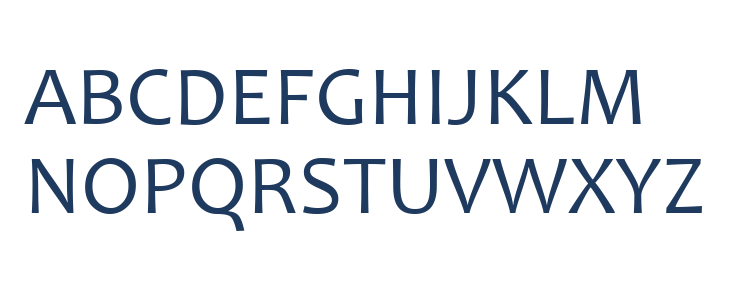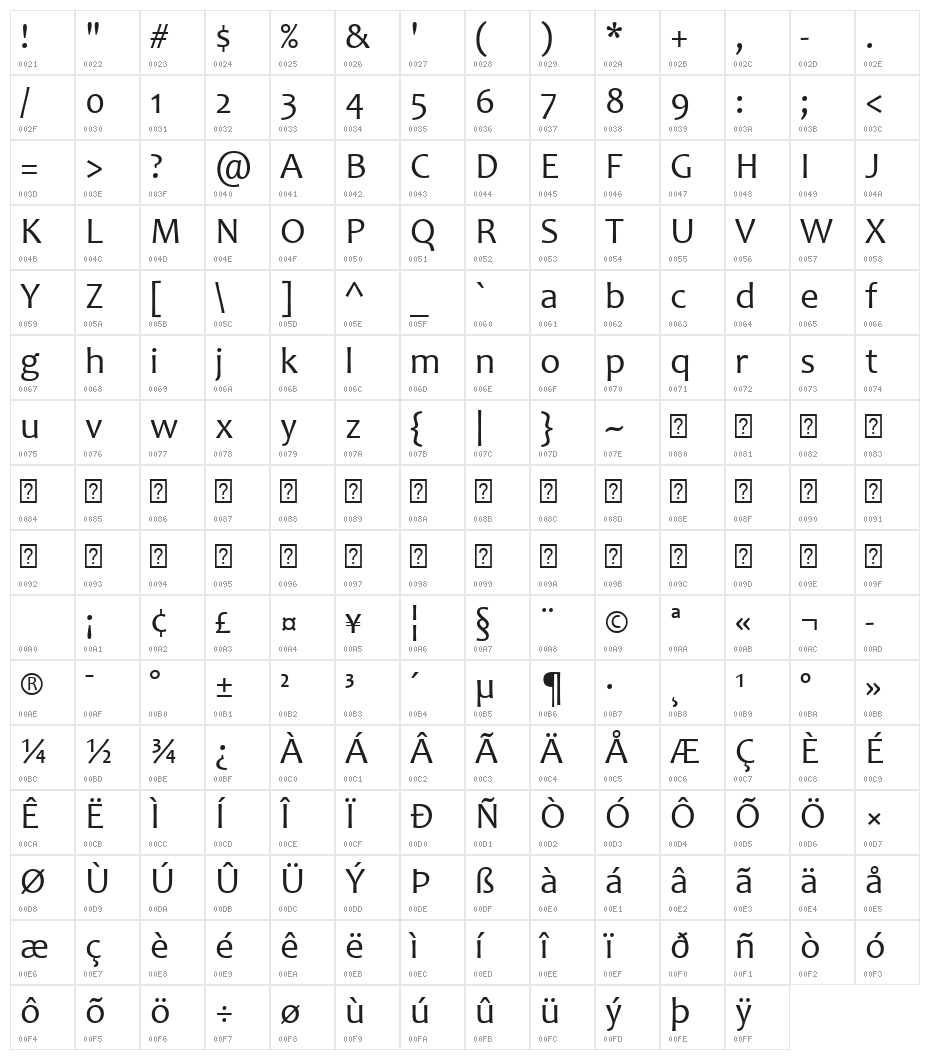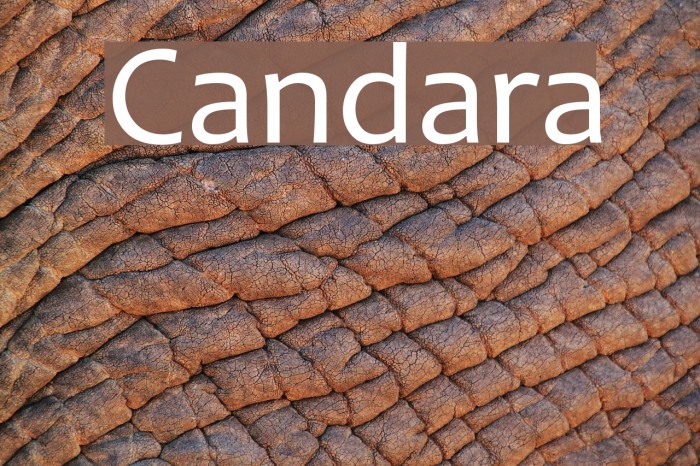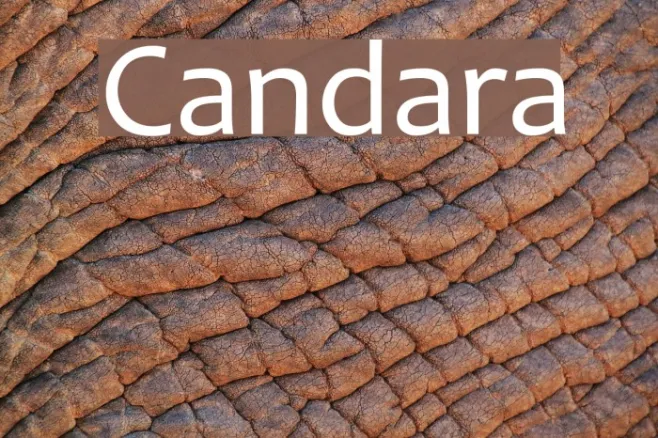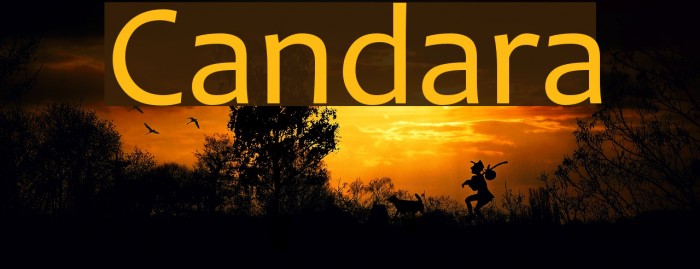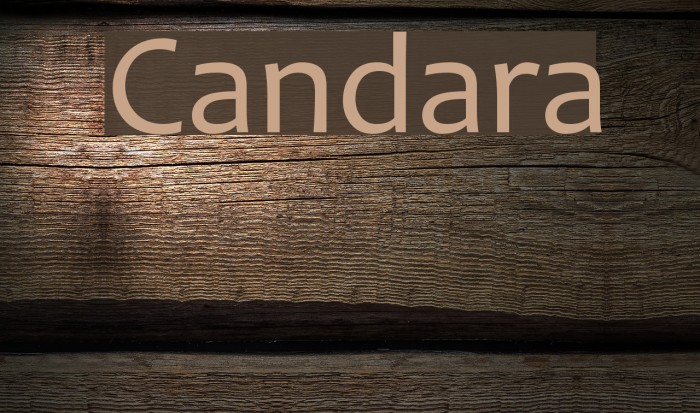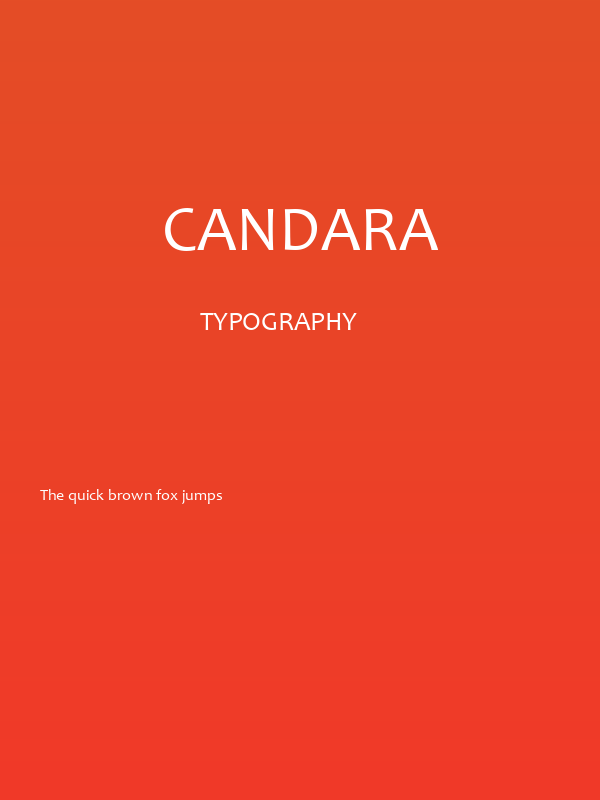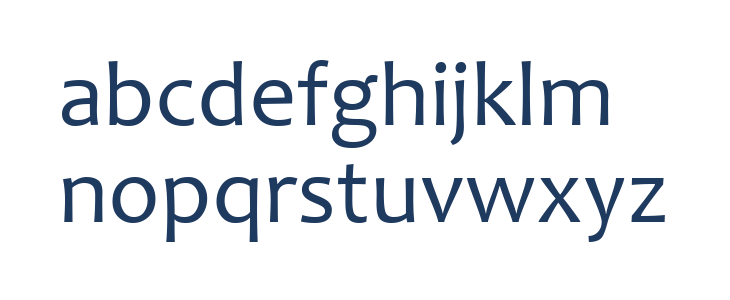
Candara Font
Candara Description
This font features a clean and modern sans-serif design with smooth curves and a slightly condensed structure. The characters are well-balanced, offering a harmonious appearance that enhances readability. The uppercase letters are bold and assertive, while the lowercase letters maintain a friendly and approachable feel. The numerals are clear and distinct, making them suitable for both text and display purposes. Special characters are designed with the same attention to detail, ensuring consistency throughout the typeface. This font is versatile, suitable for a wide range of applications from digital to print media.